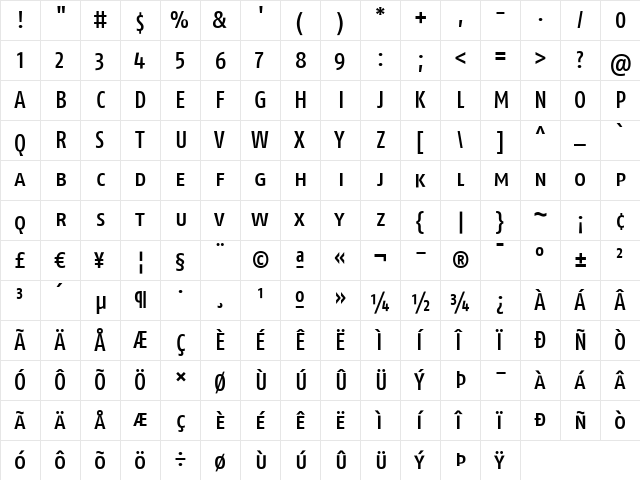
FagoCoLf Medium Font Preview
FagoCoLf Medium
FagoCoLf Medium Font Details
Design Context for FagoCoLf Typeface
FagoCoLf takes a measured approach to typography — its balanced proportions and neutral character make it a reliable workhorse for both digital and print work.